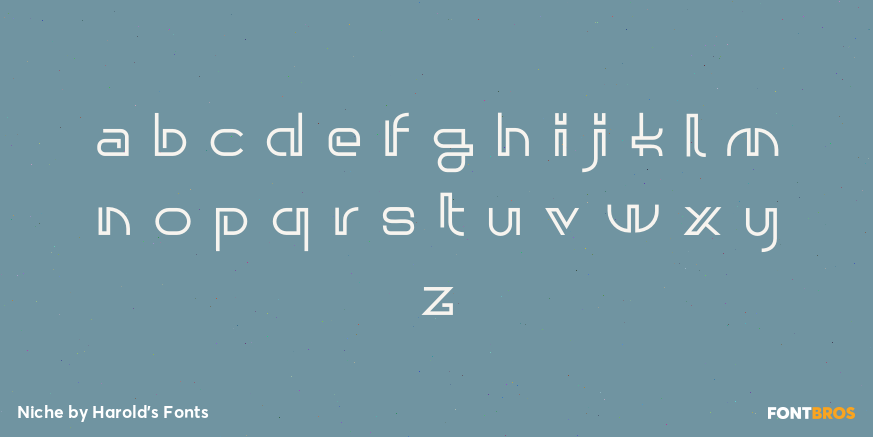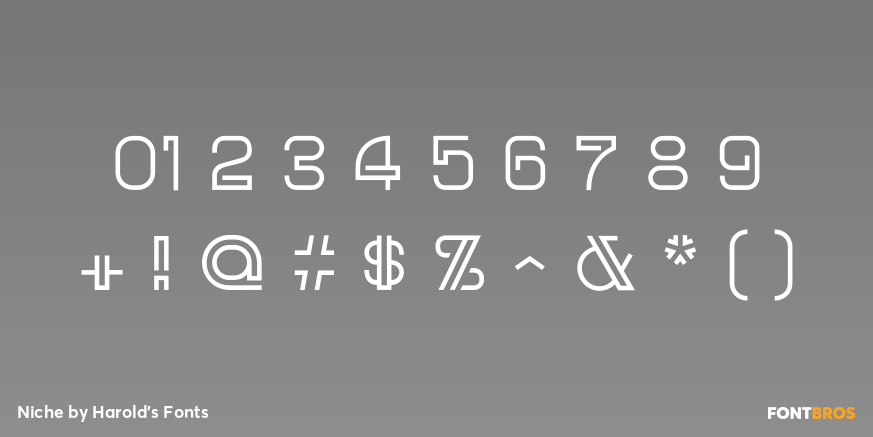
Niche
Font Family by Harold's Fonts
NICHE has the playful and decorative geometry of mid-century modern design. Used sparingly, these letters give add a dash of retro-future style. Inspired by a caps-only design in Ben & Ed C. Hunt’s 100 Alphabets from 1954.